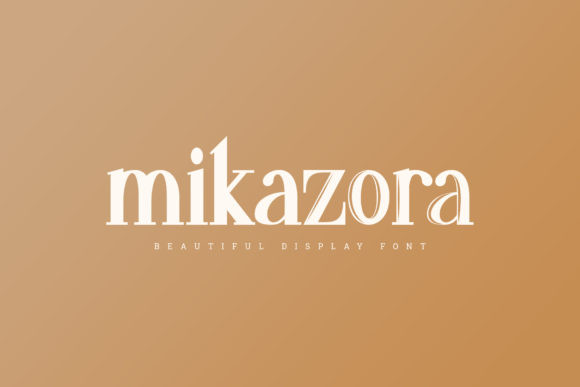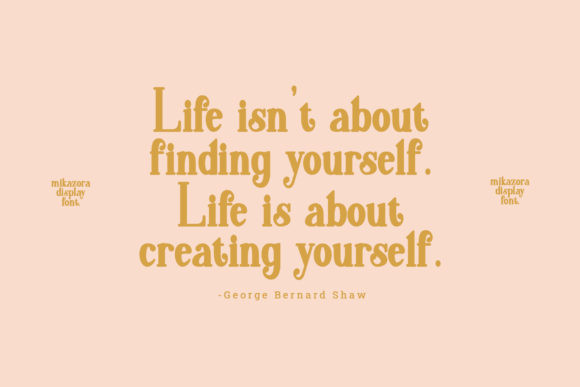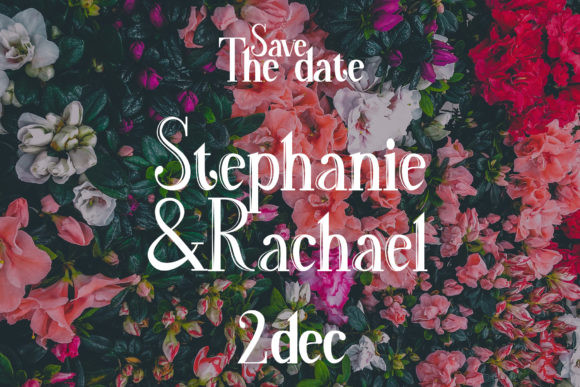
Mikazora Font
Mikazora is a simple and casual serif font with an undeniably clean feel. With its neat and beautiful arrangement of letters, this typeface will look outstanding in both formal and non-formal designs.